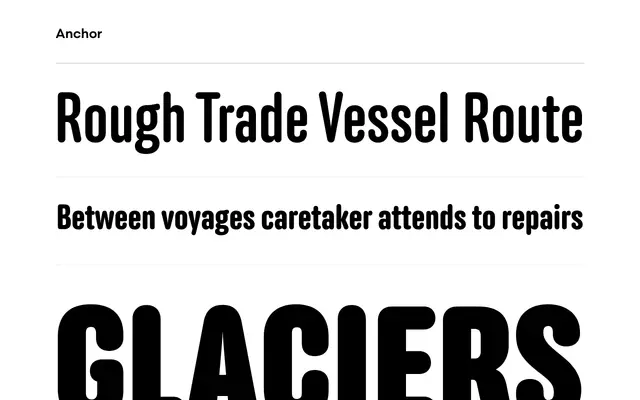
Anchor
A four-weight family of round display gothics by Eric Olson, designed to work in tight spaces alongside Bryant Compressed.
Anchor runs from a workaday Medium and Semibold through to a plump Bold and Black that lean into exaggeration and swagger. Eric Olson designed it as a companion to Bryant Compressed, and the two sit naturally together in editorial and identity work where informality is still expected to behave. An OpenType ornaments set adds a collection of playful arrows.
Anchor is a round display gothic, informal in character but structured enough for compact setting. Its rounded letterforms and varying weight personalities from straightforward medium to swaggering black place it firmly in the display category.